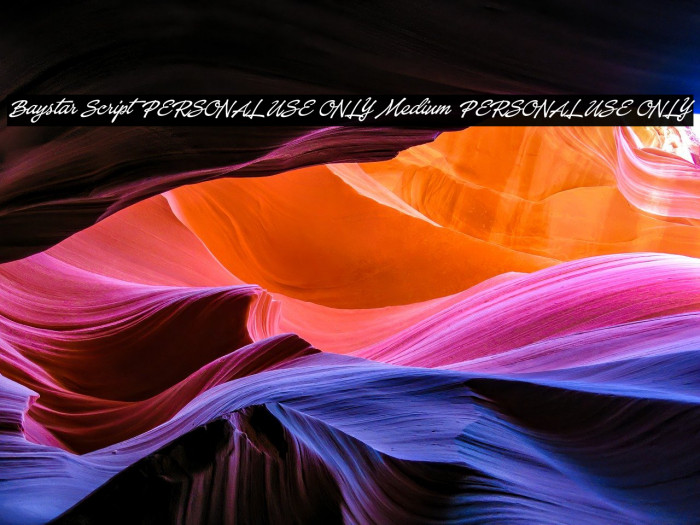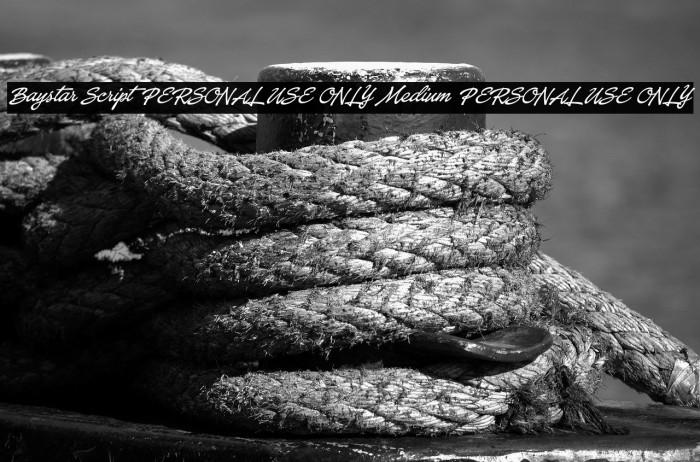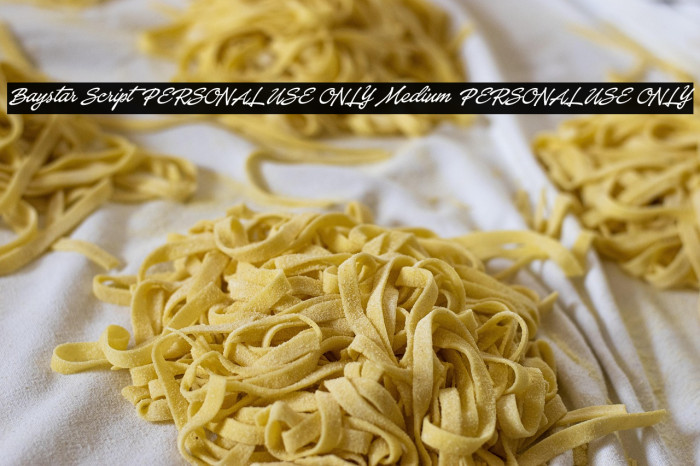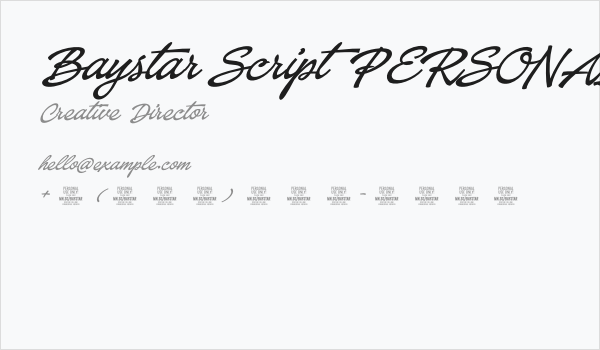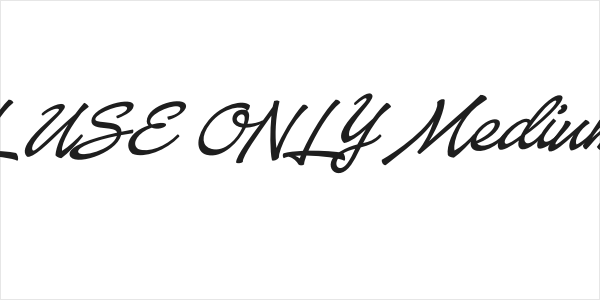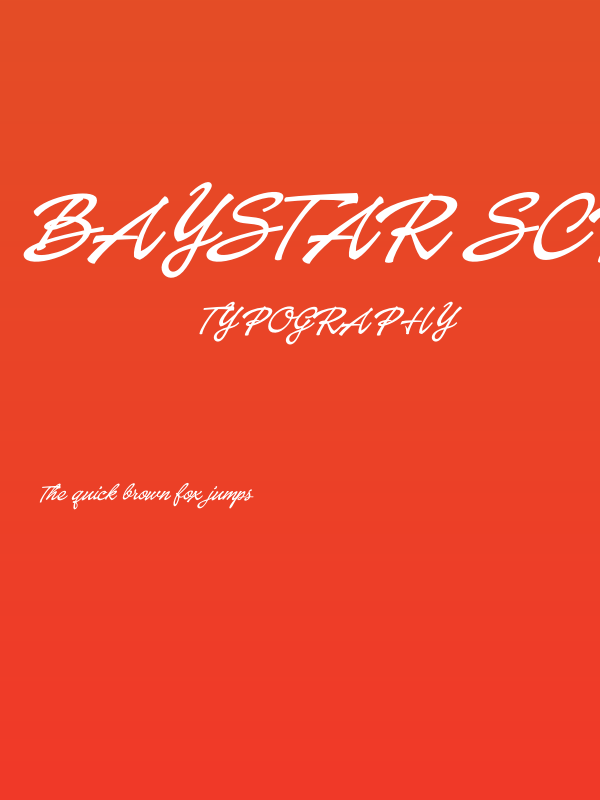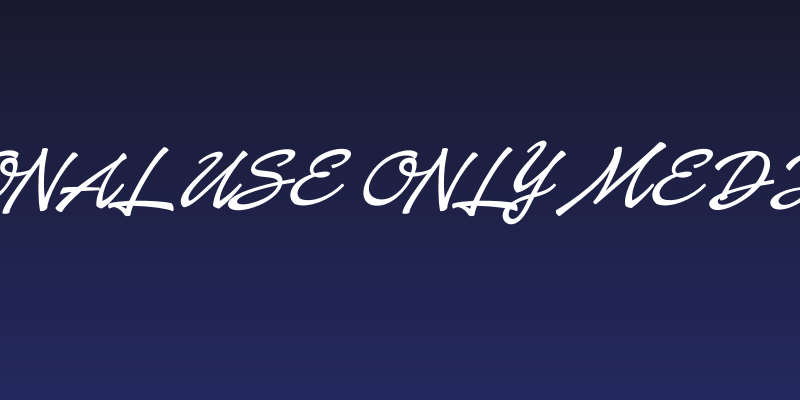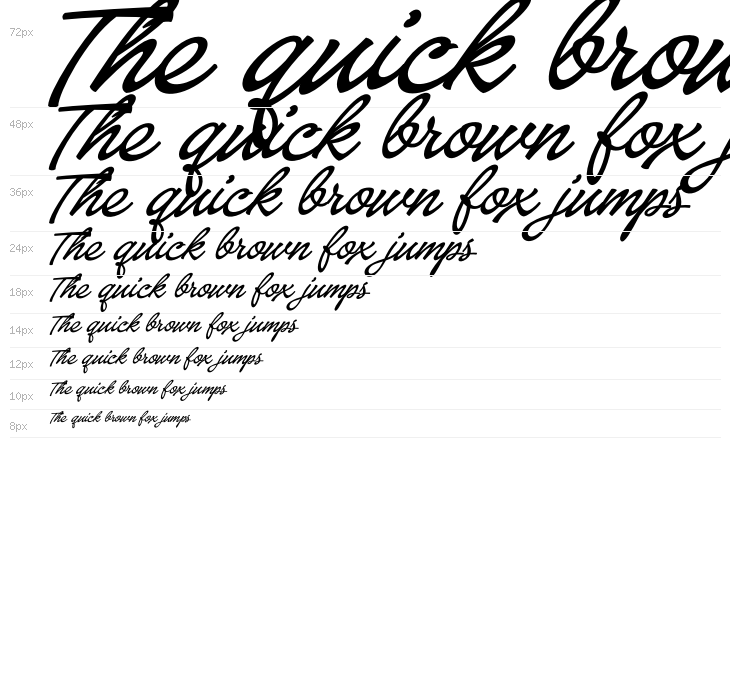
Baystar Script PERSONAL USE ONLY Medium PERSONAL USE ONLY Font
Baystar Script PERSONAL USE ONLY Medium PERSONAL USE ONLY Description
This script font exudes elegance and fluidity, characterized by its smooth, flowing strokes and cursive style. The letters are interconnected, creating a seamless and continuous appearance. The uppercase letters are bold and prominent, while the lowercase letters maintain a consistent flow, enhancing readability. The font includes a full set of characters, including numbers and special symbols, making it versatile for various design needs. Its handwritten style adds a personal touch, perfect for projects that require a sophisticated yet approachable aesthetic.
Overall StyleElegant, Handwritten
Use CaseLogos, Invitations, Greeting Cards
Proposed ProjectsIdeal for wedding invitations, greeting cards, branding, and logo design where a personal and elegant touch is desired.